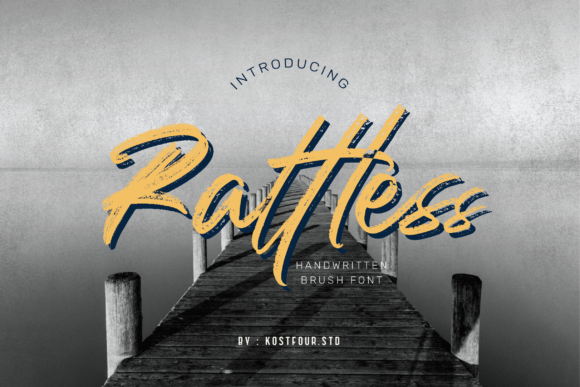
Prepare yourself for a visual revolution with Rattless, the font that exudes street art rebellion like no other. This trendsetting brushed display font is a masterful fusion of urban grit and artistic freedom, ready to unleash your individuality onto the world. Let Rattless's raw energy and edgy style ignite your projects, transforming them into masterpieces that command attention.
With Rattless, you'll join a creative movement that celebrates individuality and breaks free from conformity. Its bold and unapologetic strokes will add a touch of rebellion to your designs, whether you're crafting bold statements on t-shirts, sportswear, logos, or eye-catching advertisements. The possibilities are limitless, just like the vibrant streets that inspired Rattless.
Imagine your designs pulsating with the vibrant energy of street art, captivating audiences with every stroke of Rattless. Your t-shirts will become walking billboards of originality, your sportswear will exude a dynamic athleticism, and your logos will stand out from the crowd with an urban edge that's impossible to ignore. Rattless is the key to unlocking your creative potential and leaving an indelible mark on the world.
But Rattless isn't just about aesthetics; it's a symbol of self-expression and empowerment. With its bold presence, this font empowers you to break free from the ordinary and embrace your unique voice. It's a font that encourages you to defy conventions, push boundaries, and make a statement that resonates with your soul.
So step into the world of Rattless and let your creativity run wild. Let this extraordinary font ignite your designs with a spirit of rebellion and an artistic flair that's sure to leave a lasting impression. Embrace the street art vibe and become a part of a movement that celebrates individuality and empowers self-expression. Let Rattless be your artistic weapon, your tool for visual liberation, and your passport to a world of limitless creative possibilities.